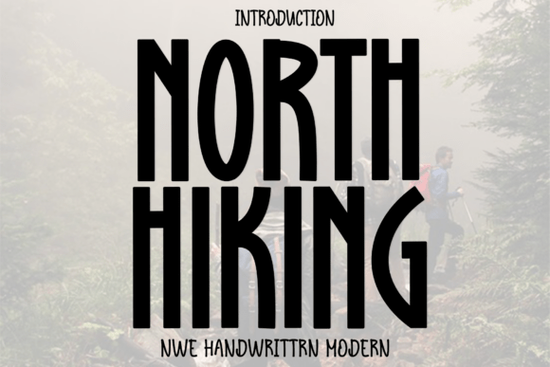
If you're looking for a clean, modern handwritten font that feels both professional and approachable, North Hiking Font is a strong choice especially if your work leans toward outdoor themes, travel content, or minimalist branding. It’s not just another script; it has a quiet confidence in its design, with tall, thin strokes and a gentle slant that gives it an airy, open feel. Think of it as the kind of font you’d see on a well-designed trail map or a sleek hiking gear label.
What makes North Hiking Font stand out?
Unlike many handwritten fonts that lean too casual or busy, North Hiking strikes a balance. Its crisp lines and subtle angles make it legible at small sizes while still feeling personal and expressive. It works well in both digital and print formats, which is great for designers who need flexibility across projects from Instagram posts to product packaging.
The font was designed with clarity in mind. Whether you’re labeling a photo from a mountain hike or building a website for an outdoor adventure company, North Hiking adds sophistication without overwhelming the message. It’s not flashy, but it’s memorable.
Where can you use North Hiking Font effectively?
- Travel photography – Use it to caption images of scenic trails, sunrise hikes, or remote landscapes. The clean style keeps focus on the photo, not the text.
- Outdoor brand identity – Perfect for logos, business cards, or merch like t-shirts and tote bags for hiking, camping, or nature-focused businesses.
- Sophisticated web design – Great for headings on websites where you want a human touch without sacrificing professionalism.
- Print-on-demand items – Ideal for mugs, posters, or journals with nature-themed quotes or affirmations.
It also pairs well with sans-serif typefaces, making it easy to integrate into layouts that mix different styles. Try pairing it with a simple font like Lato or Open Sans for a balanced look.
How does it compare to other display fonts?
While many display fonts aim for boldness or whimsy, North Hiking takes a more restrained path. If you’ve used fonts like cute holiday font display fonts, simple valentine font display fonts, or super funky font display fonts, you’ll notice North Hiking fits a different mood one that’s calm, intentional, and grounded.
It doesn’t shout. Instead, it invites attention through subtlety. This makes it ideal for projects where tone matters as much as visuals like promoting eco-friendly outdoor gear or sharing mindful travel stories.
Why designers and crafters love this font
Many creatives appreciate how versatile North Hiking is. It’s not tied to one theme, yet it consistently evokes a sense of space and openness. For small business owners, it’s a reliable option when branding needs to feel authentic but polished.
And if you’re into seasonal or themed designs, you might find yourself returning to this font even outside of hiking contexts. Its neutral elegance means it can fit into autumnal scenes, winter getaways, or spring adventures just by changing the supporting visuals.
Final thoughts: Is North Hiking Font right for your next project?
If you value clean lines, thoughtful spacing, and a touch of nature-inspired calm in your design work, yes this font could be a great addition to your toolkit. It’s especially useful when you want your message to feel genuine, not staged.
Whether you’re designing for a travel blog, launching a new line of outdoor apparel, or creating digital art for social media, North Hiking brings a quiet strength to your visuals.
Quick checklist before using:
- Test the font at different sizes especially for small text.
- Pair it with a neutral or simple background to let it shine.
- Use it for headlines, captions, or short phrases not long blocks of text.
Try it on your next project and see how it changes the mood of your design. You might just find it becomes your go-to for anything that feels fresh, open, and real.